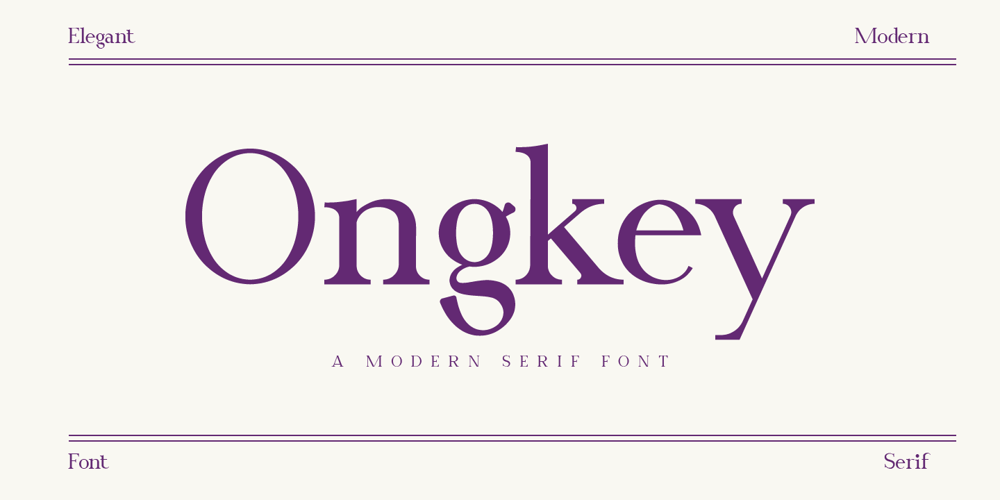
Ongkey Font Family was designed by Hayinah and published by Rockboys Studio. Ongkey contains 1 styles and family package options. Ongkey is a modern serif font that merges traditional elegance with contemporary flair. Its sophisticated letterforms feature refined serifs and a balanced contrast between thick and thin strokes, providing a timeless yet fresh aesthetic. Ongkey is ideal for high-end branding, editorial layouts, and luxurious print materials, offering a touch of class and readability. Its versatility shines in both display and body text, making it a go-to choice for designers seeking to create polished and stylish visual identities.